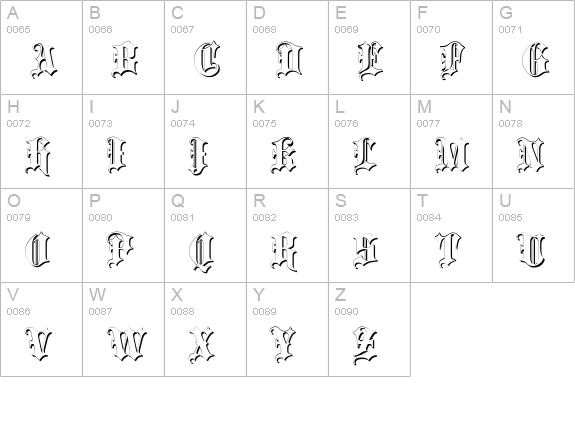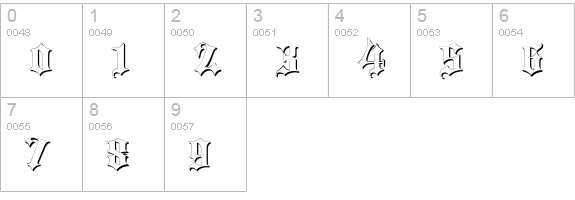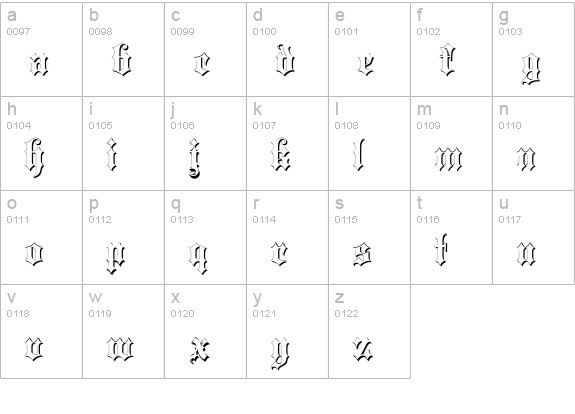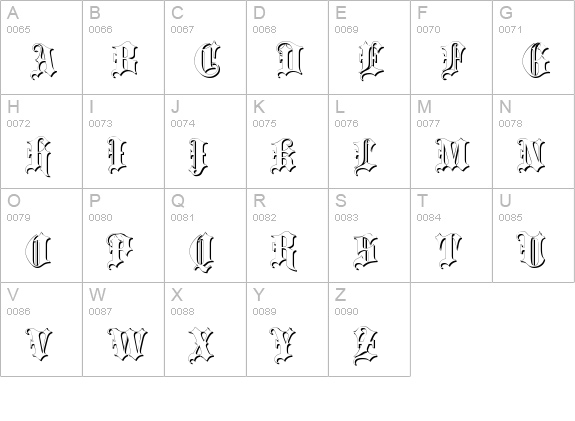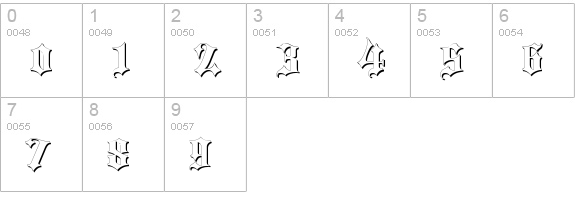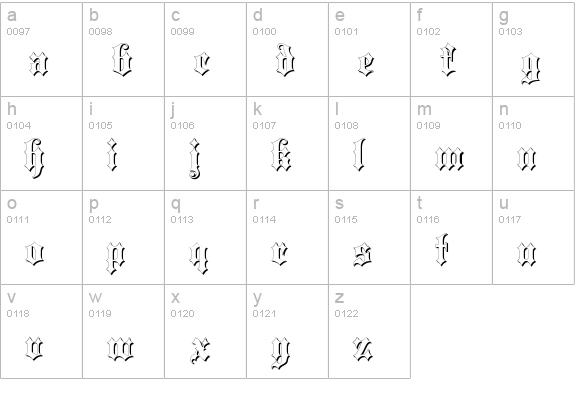
Blackletter Shadow Font Details
Blackletter Shadow is a classic font that exudes a sense of elegance and sophistication. Its unique design combines the boldness of blackletter typography with a subtle shadow effect, resulting in a visually stunning typeface that is perfect for adding a touch of drama to any project. This font is meticulously crafted with attention to detail, ensuring that each letter is beautifully formed and harmoniously balanced. The sharp lines and intricate curves of Blackletter Shadow create a captivating visual presence that commands attention and leaves a lasting impression. One of the most appealing aspects of Blackletter Shadow is that it is freely available to download at FontsMarket.com. This means that designers, artists, and creatives from all walks of life can enjoy the benefits of this stunning font without any cost. Whether you are working on a personal project or a professional endeavor, Blackletter Shadow will elevate your designs to new heights. With its timeless aesthetic, Blackletter Shadow is versatile and can be used in a wide range of applications. From logo designs to branding materials, from invitations to packaging, this font brings a touch of old-world charm and sophistication to any design project. The versatility of Blackletter Shadow extends beyond its visual appeal. Its legibility and readability make it suitable for both large bodies of text and smaller captions or headlines. The careful balance between the thick and thin strokes of the letters ensures that the text remains clear and easy to read, even at smaller sizes. In conclusion, Blackletter Shadow is a must-have font for anyone seeking to add a touch of elegance and drama to their designs. Its timeless aesthetic, attention to detail, and availability as a free download at FontsMarket.com make it an invaluable resource for designers and creatives alike. So, why wait? Download Blackletter Shadow today and let your creativity shine.